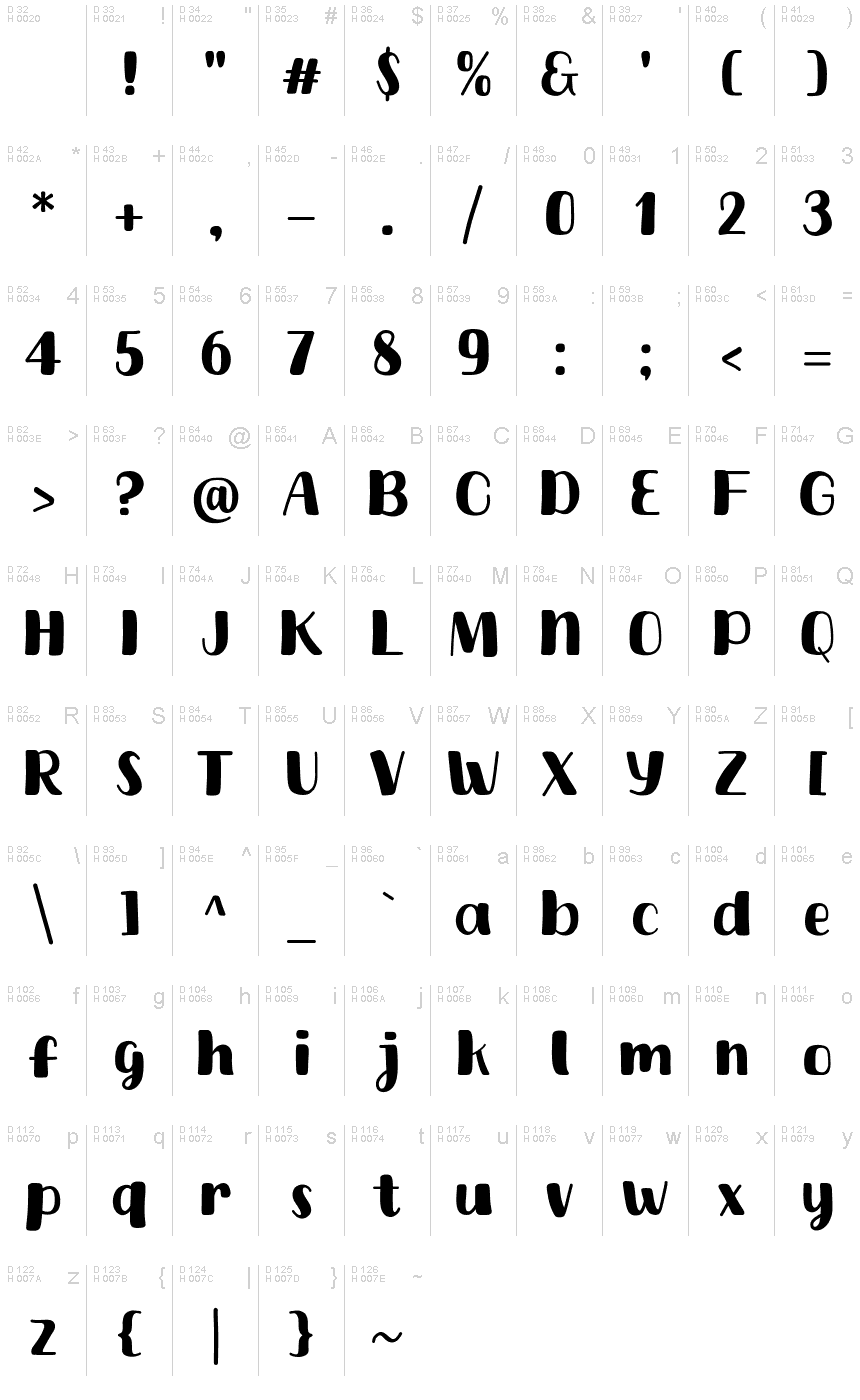
Spicy Chips
Spicy Chips, a bold display font by Khurasan, adds a playful touch to any project with its cartoon-inspired style. Its bold weight ensures maximum impact and readability, making it perfect for eye-catching headlines, logo designs, and packaging.
Whether you're working on a children's book cover or an animated website, Spicy Chips brings a dash of fun and vibrancy to your creative endeavors. Let this whimsical typeface take center stage and captivate your audience with its lively personality.